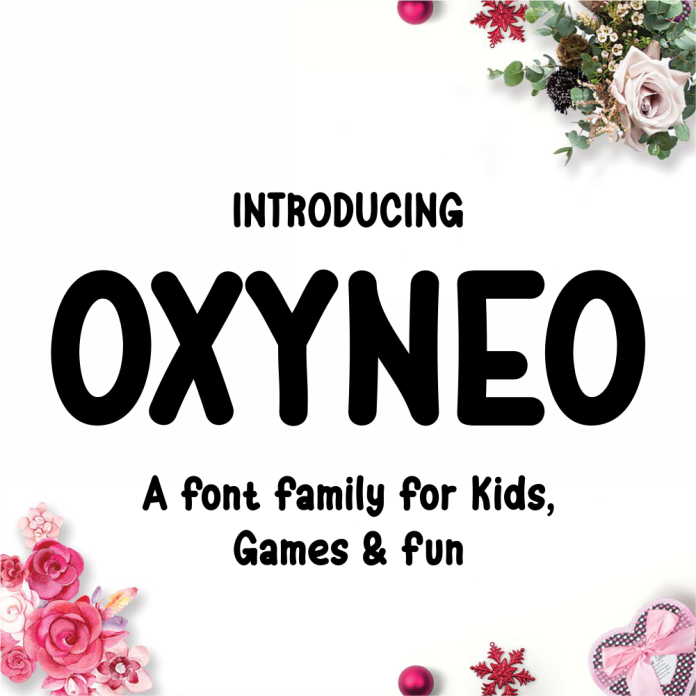
Oxyneo Font is a modern and sleek sans-serif font design. Its clean lines and sharp edges give it a contemporary look, perfect for use in branding, headlines, and digital designs. The font is versatile and easy to read, making it suitable for a wide range of projects.